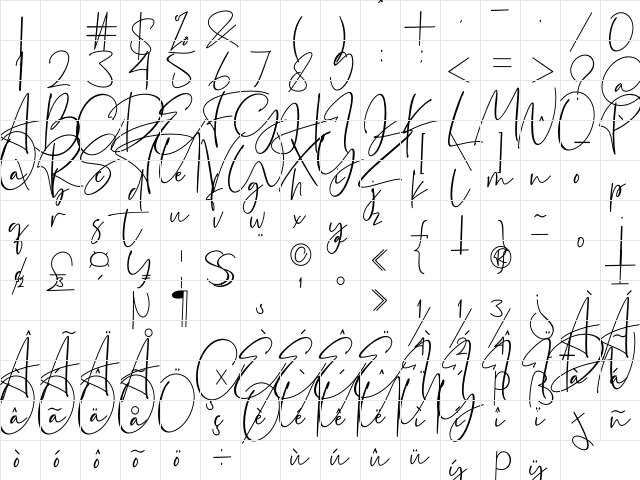
Estefin Regular Free Font
Estefin Regular
Design Context for Estefin
Estefin is a composed and adaptable typeface that performs quietly and consistently across a wide range of design contexts.